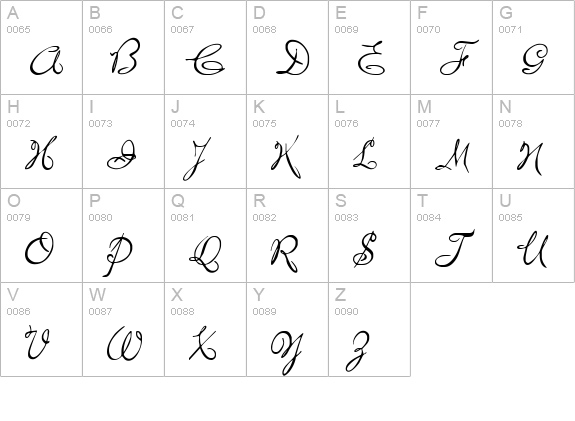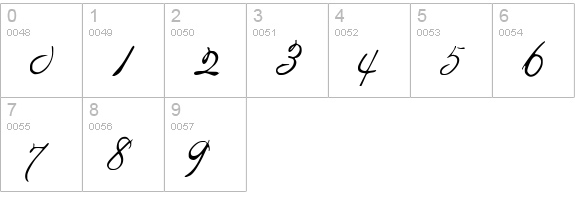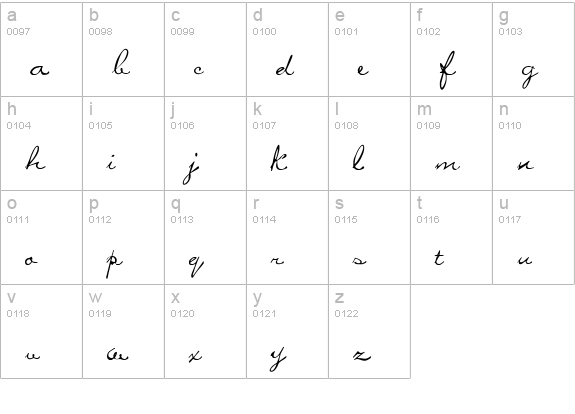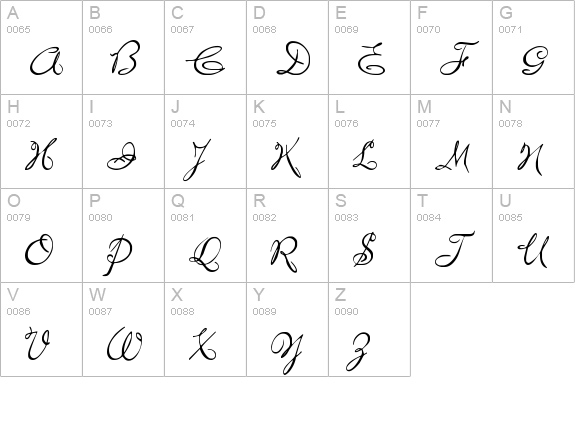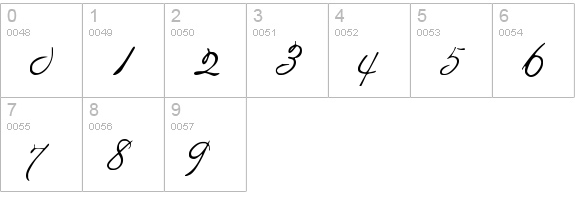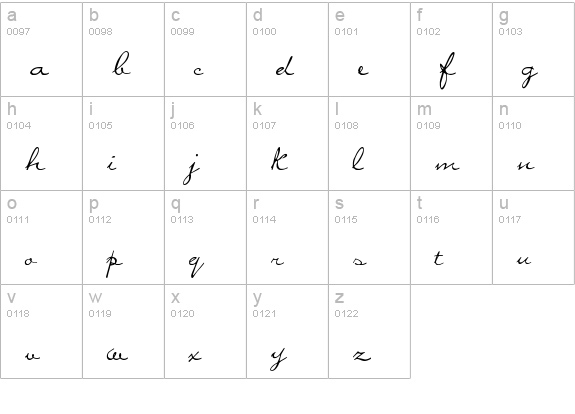
MissBrooks Regular is the standard, neutral variant in the MissBrooks typeface family \xE2\x80\x94 well suited to general body text, paragraphs, and standard typographic work.
MissBrooks Regular font is a charming and elegant typeface that exudes sophistication and style. With its delicate curves and graceful lines, this font is perfect for adding a touch of class to any project. Whether you're designing a wedding invitation, crafting a logo, or creating a poster, MissBrooks Regular font will make your text stand out with its timeless beauty. The best part? MissBrooks Regular font is completely free to download at FontsMarket.com. This means you can access this exquisite font without breaking the bank, allowing you to elevate your designs without any cost. Don't miss out on the opportunity to enhance your projects with the stunning MissBrooks Regular font, available for free at FontsMarket.com.